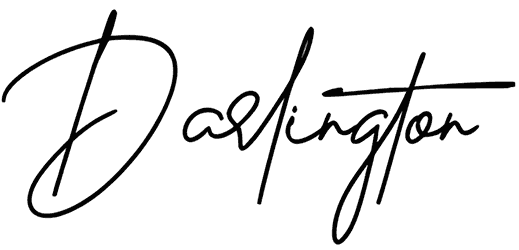
Darlington Font
If you really want your graphic content to look sturdy, elegant, professional, and delicate, then you must definitely take the best possible advantage of a magical script font such as the Darlington.